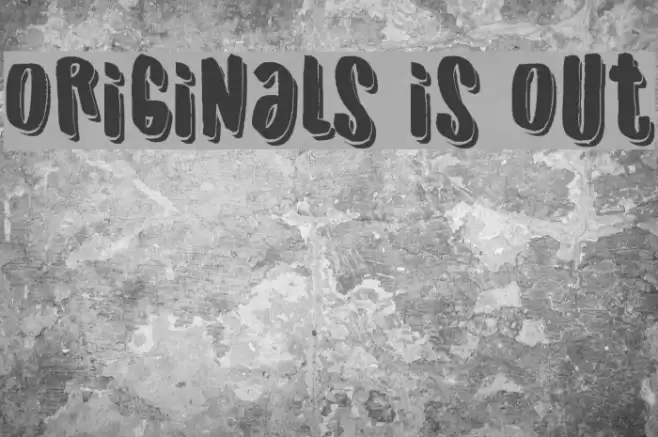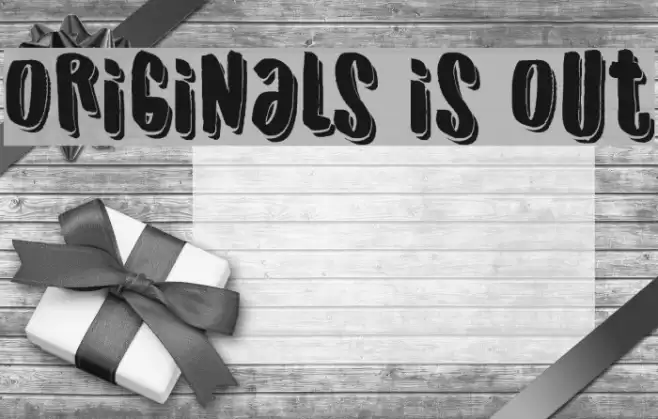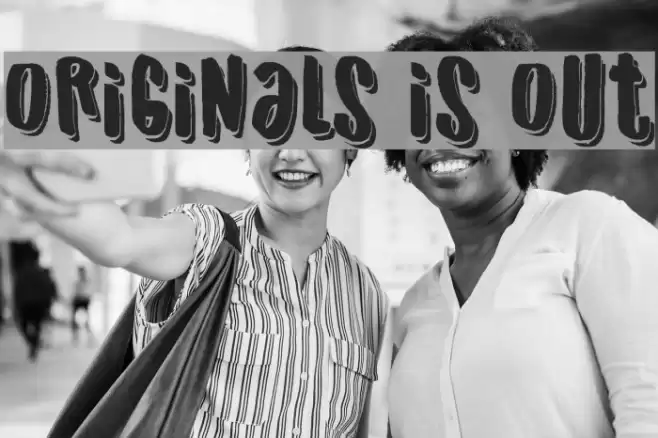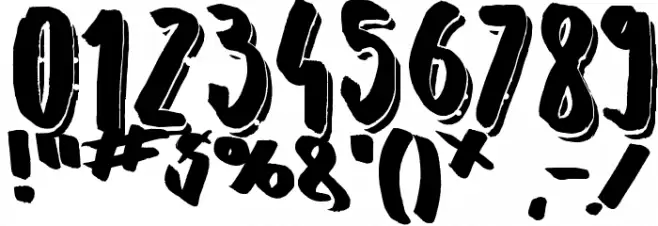
Originals is Out Font
Originals is Out Description
This font features a bold, expressive style with a hand-painted appearance. The characters are thick and have a rough, textured edge, giving them a dynamic and energetic feel. The uppercase and lowercase letters maintain a consistent height, while the numbers and special characters follow the same bold and textured design. This font exudes a sense of creativity and spontaneity, making it ideal for projects that require a strong visual impact. The irregularities in the strokes add to its charm, making it stand out in any design.
A bold, hand-painted style font with textured edges and dynamic character from Uncategorized fonts.
- Proposed Projects: Ideal for posters, album covers, branding, and any project needing a bold, artistic touch.